Our babies should have the sweetest words, care and life. So today we decided to present to you carefully selected baby fonts that will impress any grump. You can use these sweet fonts for invitations, greeting cards, magazines, children’s books and many more.
Baby Stories Display Font
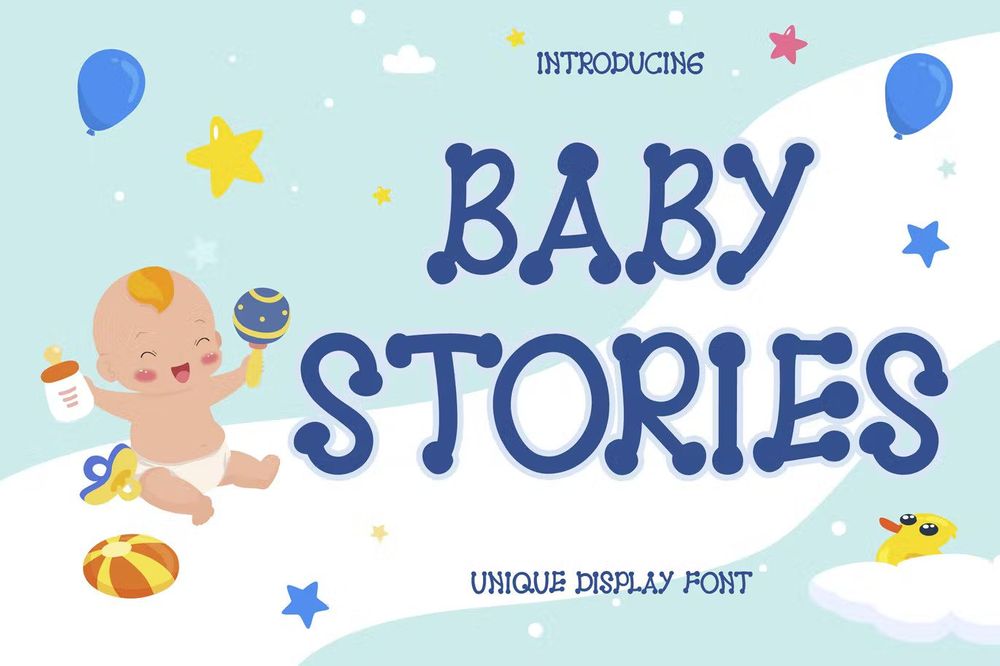
It is a handicraft font. Dicky dance can be used for products such as handcraft, product packaging, quotes, product designs, craftsmen, labels, photography, watermarks, logos and branding.
Baby Angel – Playful Display Font
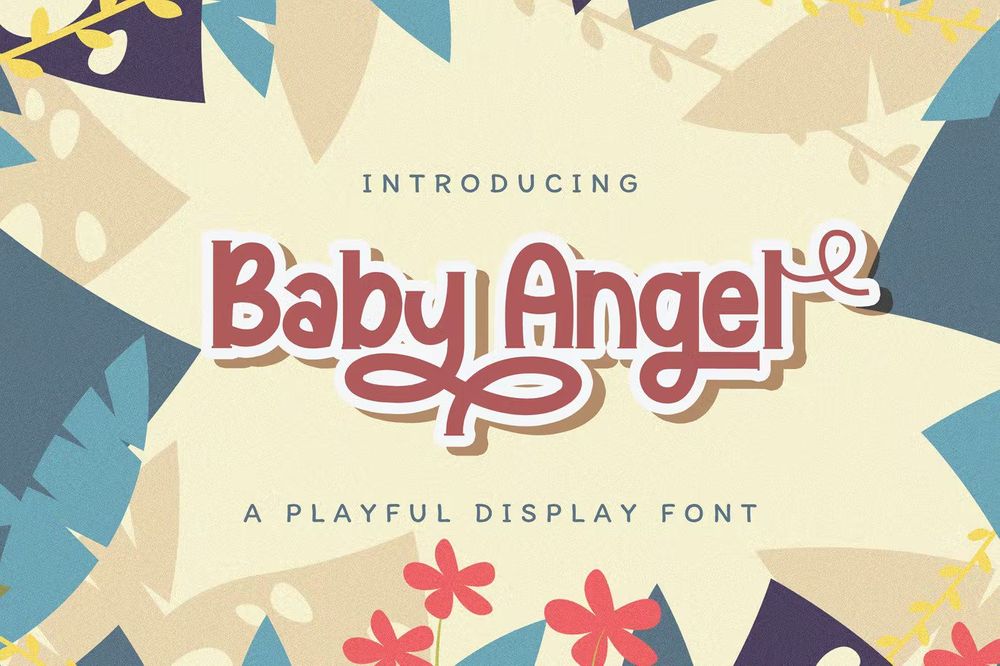
It is a fun and chunky lettered display font. This font will be a hit for each of your children or school projects.
Baby Smooch Handwritten Display Font
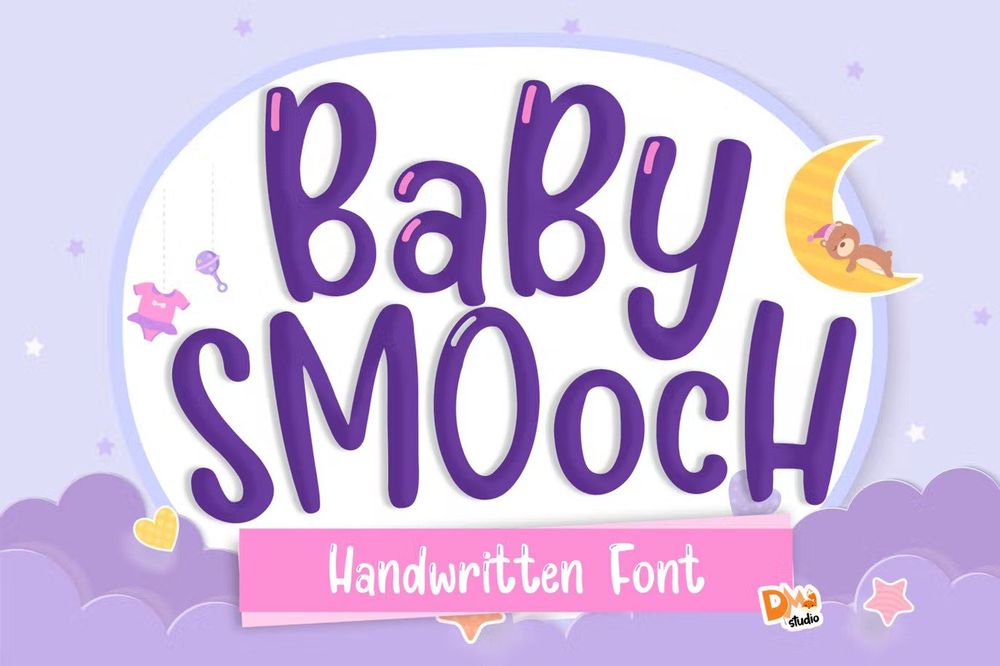
It is a smooth, curvy and warm crafty handwritten font. Great for any purpose, lovable and try different styles to have another uniqueness. Comes in two styles, regular and highlight line version.
Baby Unicorn Font
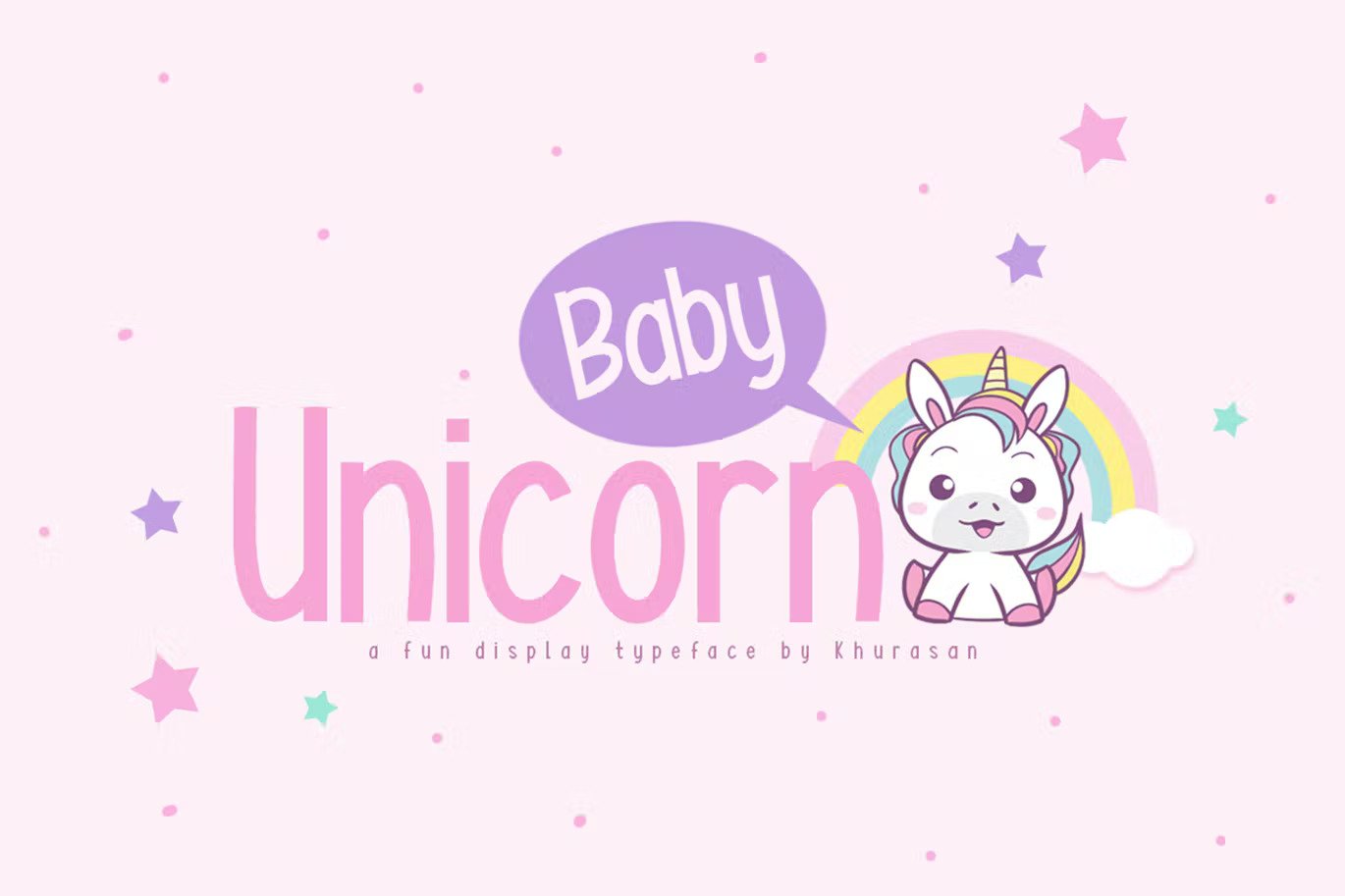
It is a fun modern display font with two different style, regular & bold. Suitable for logos, branding, greeting cards, posters and any designs that you create.
Baby Greta Display Font
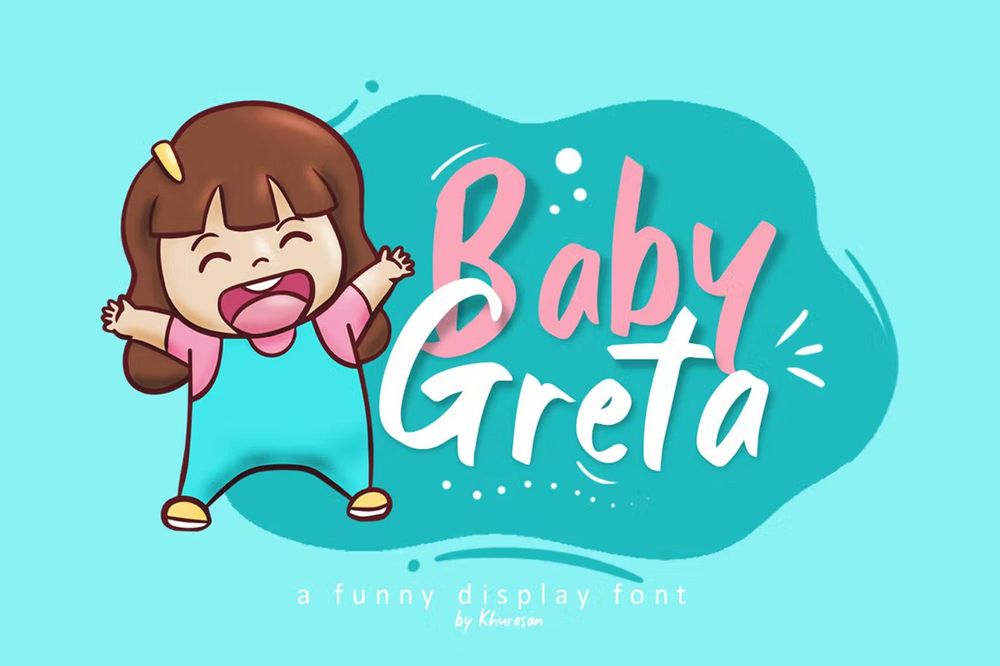
It is a fun bold display font, fresh and modern style font. Suitable for logos, branding, greeting cards, posters and any designs that you create.
Baby Bone – Fun Display Font
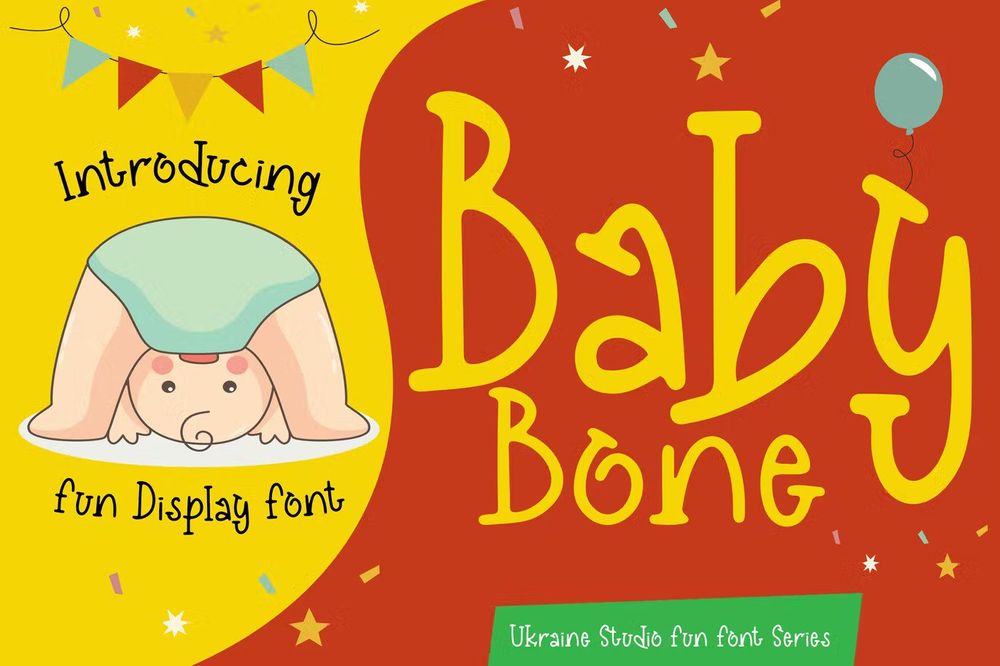
It is fun font for creative project designs. The typeface has unique style and amazing look to your design projects such as flyers, posters, brand logos, products, packaging and etc.
The Baby Monster Font
A display font with Halloween theme for your fun projects such as logos, branding, greeting cards, posters and any designs that you create.
Baby Aura Font
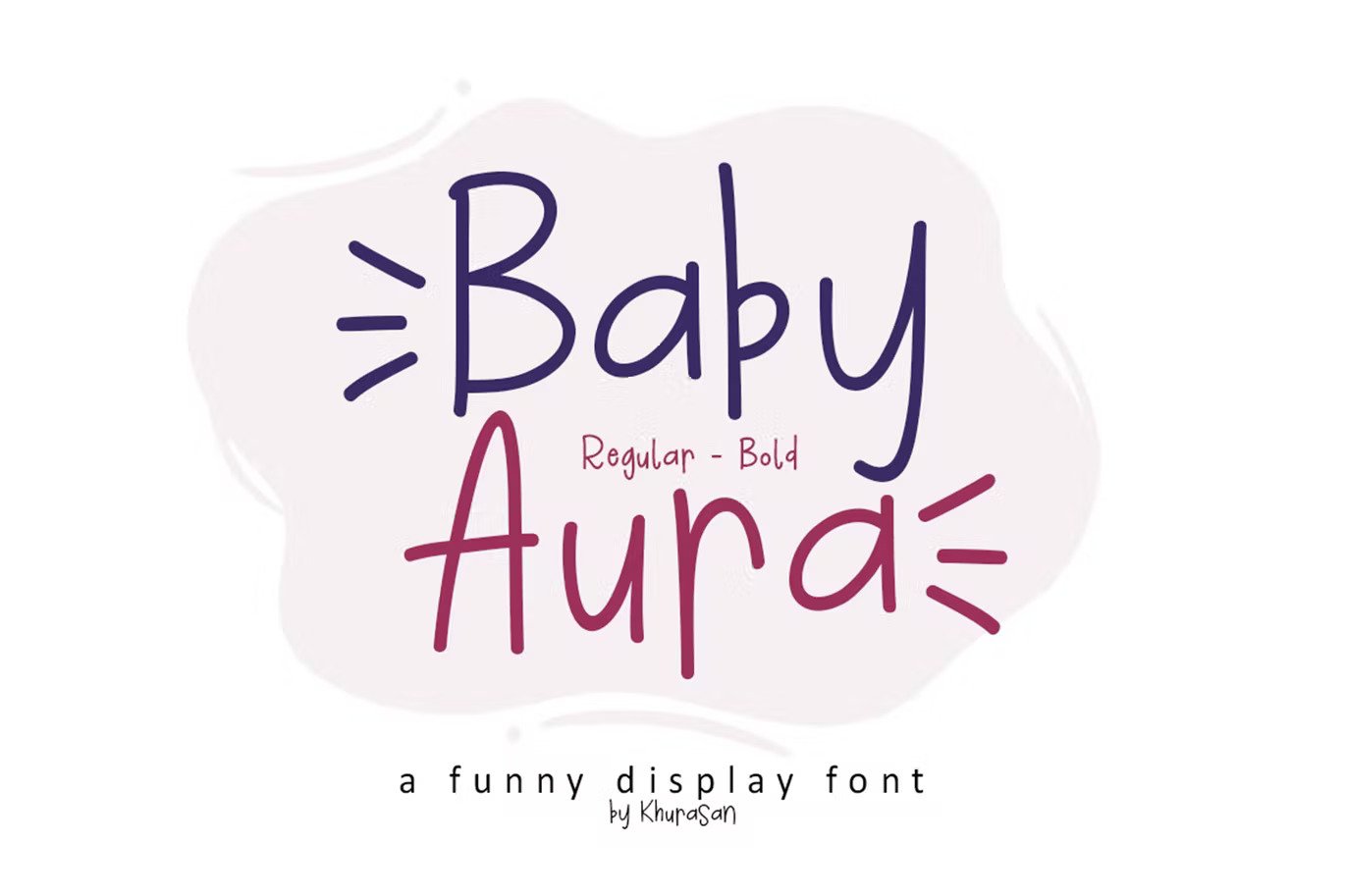
It is a fun display font, fresh and modern style with regular & bold style. Suitable for logos, branding, greeting cards, posters and any designs that you create.
The Baby Moon – Display Font
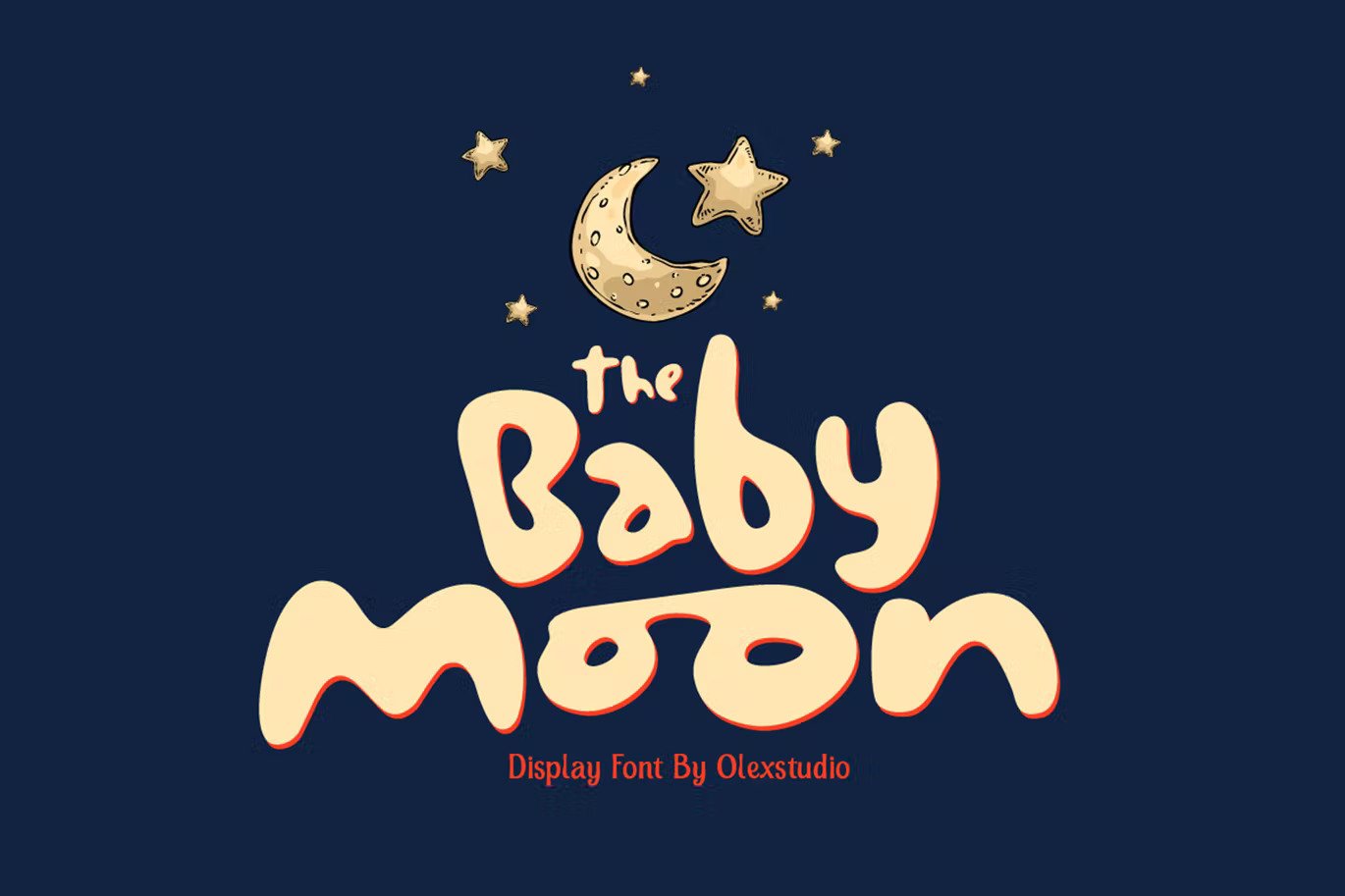
This Font will look gorgeous on all your designs such as invitations, poster designs, book designs, branding materials, logo’s, t-shirts and all other cute project designs.
Puppy Baby Font
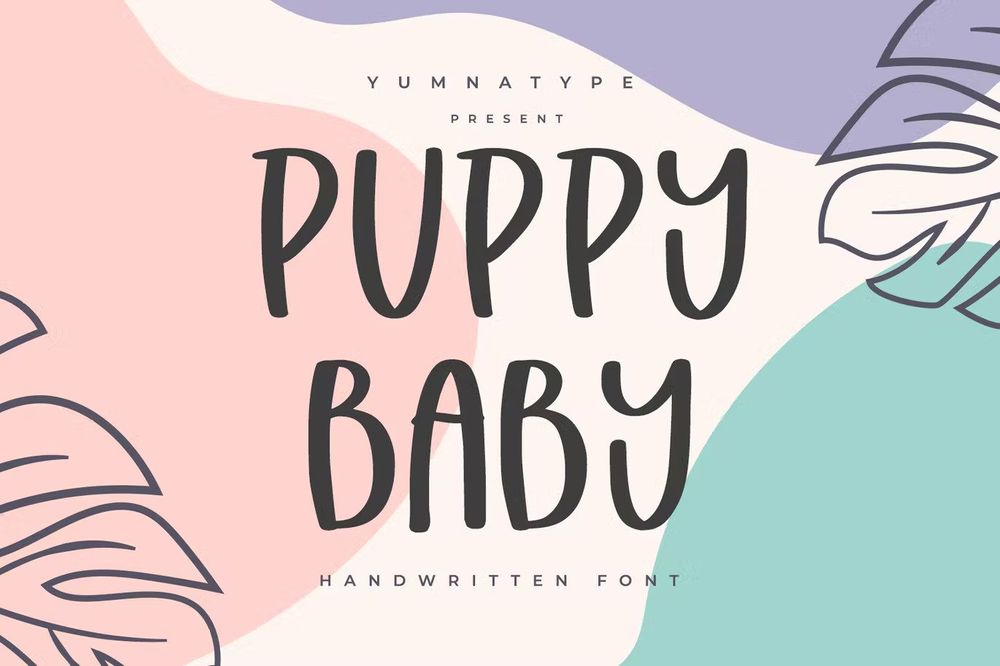
It is a elegant handwritten font best for logos, branding and quotes. Every letter has a unique and beautiful touch.
Baby Chipmunk Font
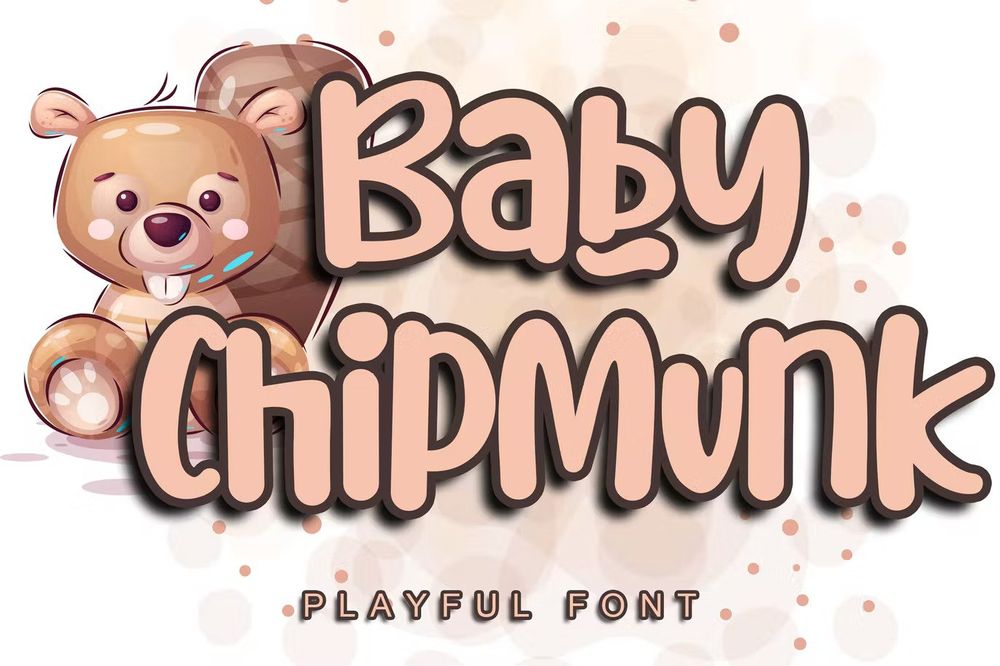
It is a cute and sweet handwritten font with an incredibly friendly feel. Perfect for party designs, invitations, children books, posters, packaging and etc.
La Petite – Handwritten Font
It is a soft and friendly font type. Perfect fit for the children/kids and informal theme, product packaging, books or magazine covers.
Baby Magpies Font
Made with love and joy. It’s ideal for comic looks, bold, thick, so it will make your design more beautiful, cute, fun, and colorful.
Cute Lime Font
It is a bold and colorful display font. Its friendly feel makes this font incredibly versatile, fitting a wide range of contexts. Add it to your creative ideas and notice how it makes them stand out.
Free Cheese Burga Chubby Font
A display comic font like no other that introduces an all-caps selection, free and available for personal use. Perfect for newborn presentations, invitations, greeting cards, posters and etc.
Free Bulky Font
Awesome free to use font for your baby or children event presentations. Also good for invitations, posters, flyers and etc.
Free Airfool Typeface
Free display fun, balloon-like typeface. It will work perfectly on posters, packaging, logotypes, apparels, advertising and etc.
Maybug Font
It is a funny Scandinavian font family which makes it great for any children’s design. Each of these fonts include Latin and Cyrillic characters, diacritics, numbers and punctuation – 254 glyphs in total.
Vanilla Latte Script Font
A fun connected script style font, designed to be playful yet bold. It’s perfect for creating quotes, greeting cards, stickers, bubbly logos and branding.
Demetri Playful and Quirky Font
It is a charming, playful, hand-lettered font. Great for children’s art, or any adult who likes to have fun. Perfect for display type and pull quotes.
Sould Billani Script Font
It is a handwritten baby theme font that is perfect for branding, logos, every other designs which display needs.